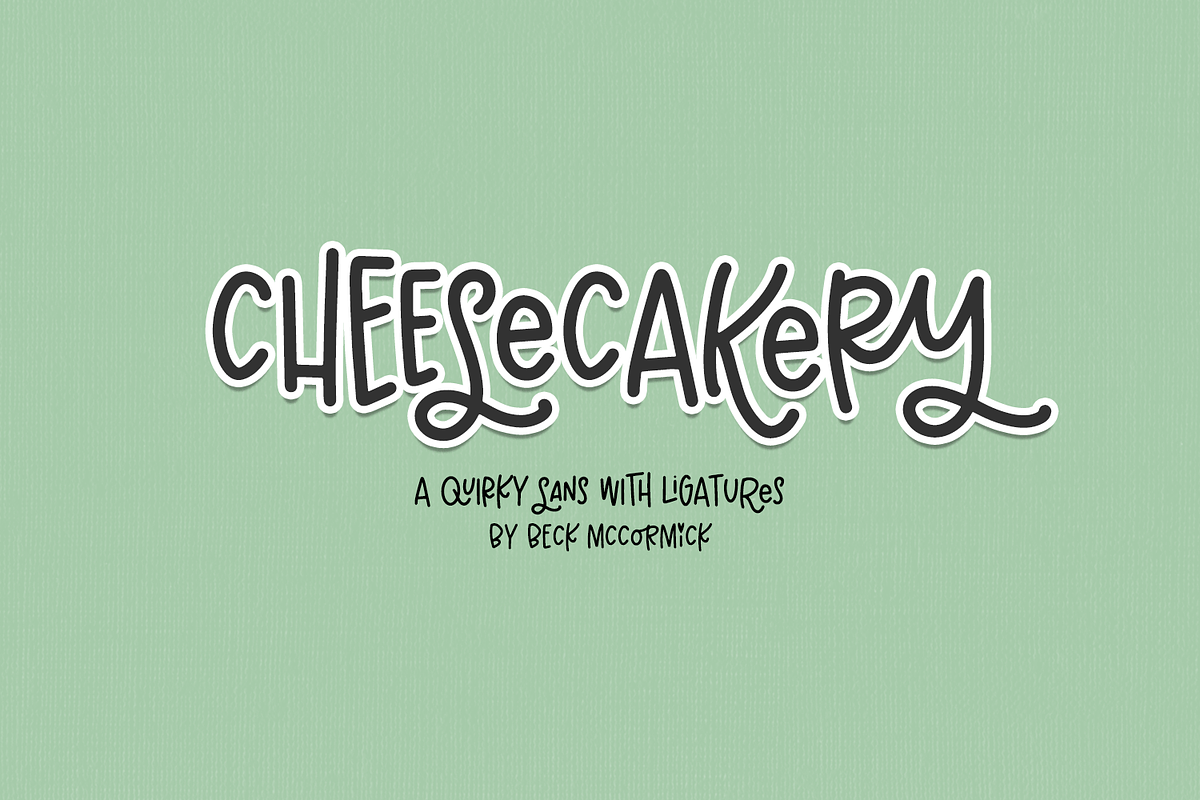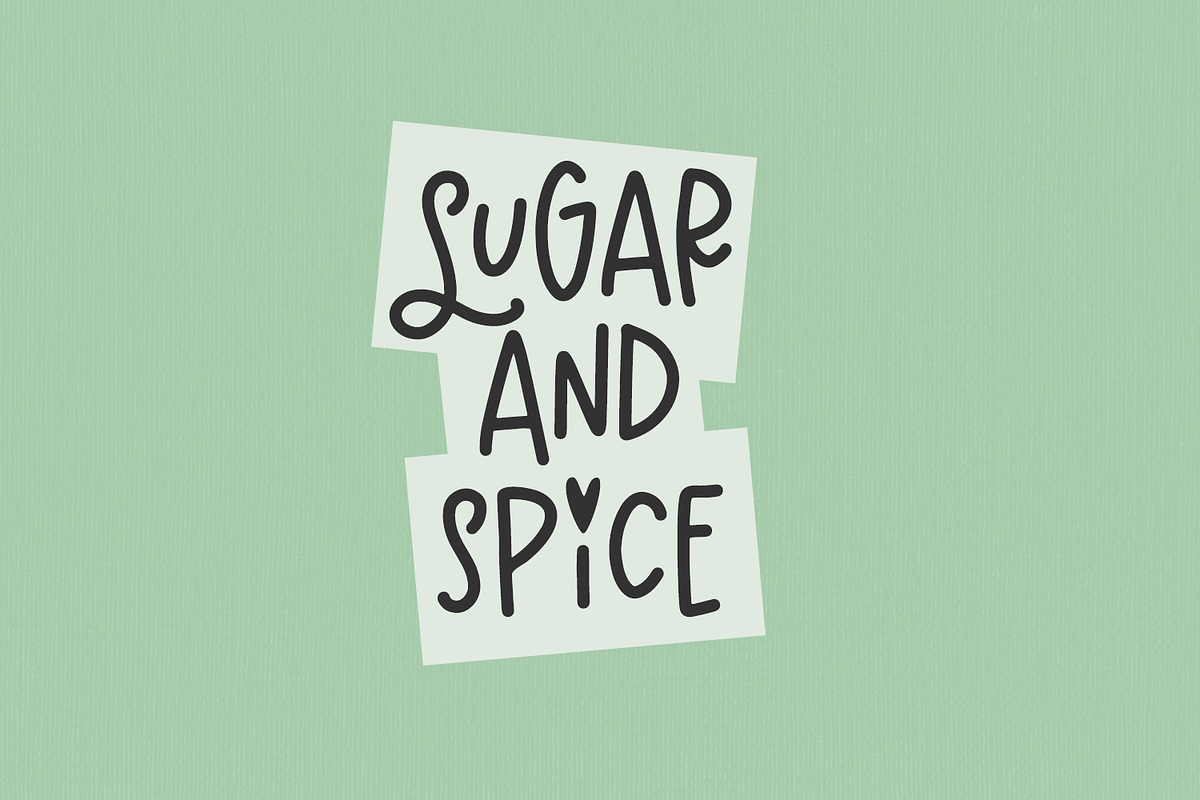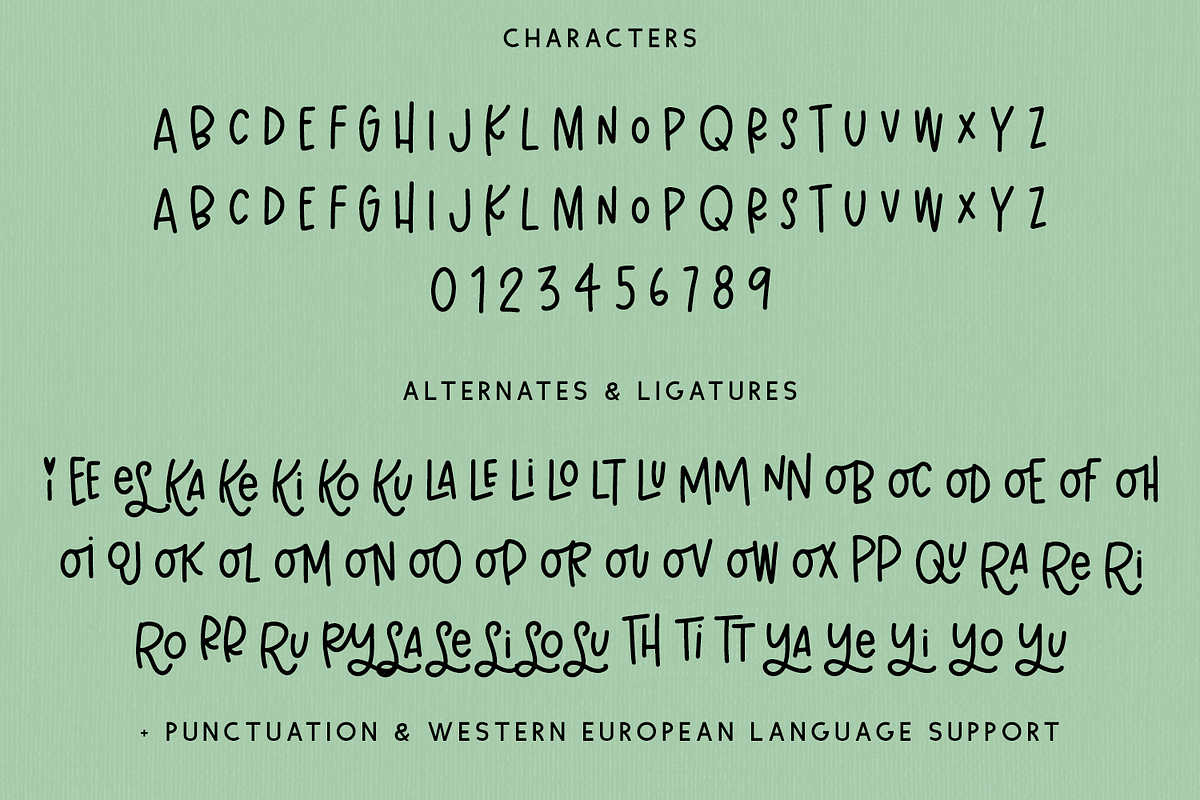
Cheesecakery Sans
Say hello to Cheesecakery, an all-caps sans font. Cheesecakery is cute and quirky, and includes adorable nested & flourished ligatures to customize your text.
Cheesecakery is best for:
- feminine, crafty projects with your Cricut or Silhouette machine, or your SVG design business
- farmhouse decor and crafts
- logos + branding
- website design + website accents, blog design
- clean print design, like magazines + flyers
- header elements that need handwritten touch
- quote graphics for social media
- feminine graphic tee shirt design & other apparel
Cheesecakery includes:
- full upper + lowercase characters (two caps sets of letters)
- numbers + punctuation
- Western European Language Support
- 1 alternate i with a heart accent
- 56 ligatures - ee, es, ka, ke, ki, ko, ku, la, le, li, lo, lt, lu, mm, nn, ob, oc, od, oe, of, oh, oi, oj, ok, ol, om, on, oo, op, or, ou, ov, ow, ox, pp, qu, ra, re, ri, ro, rr, ru, ry, sa, se, si, so, su, th, ti, tt, ya, ye, yi, yo, yu